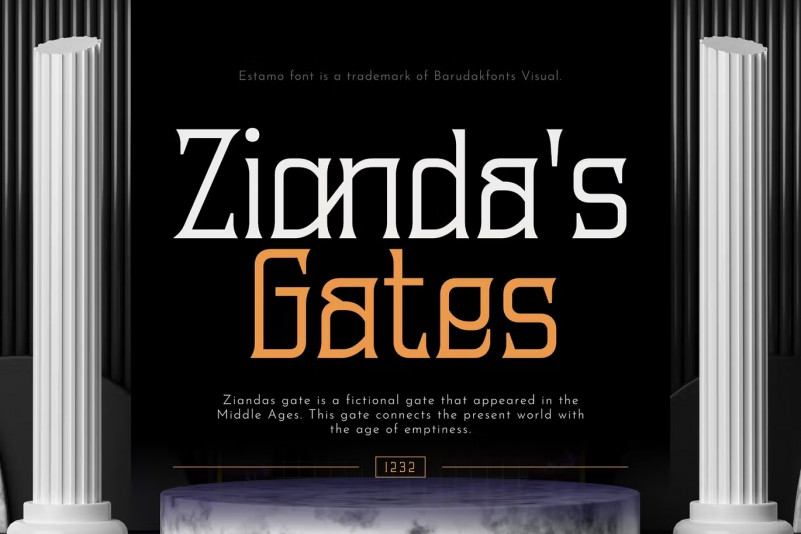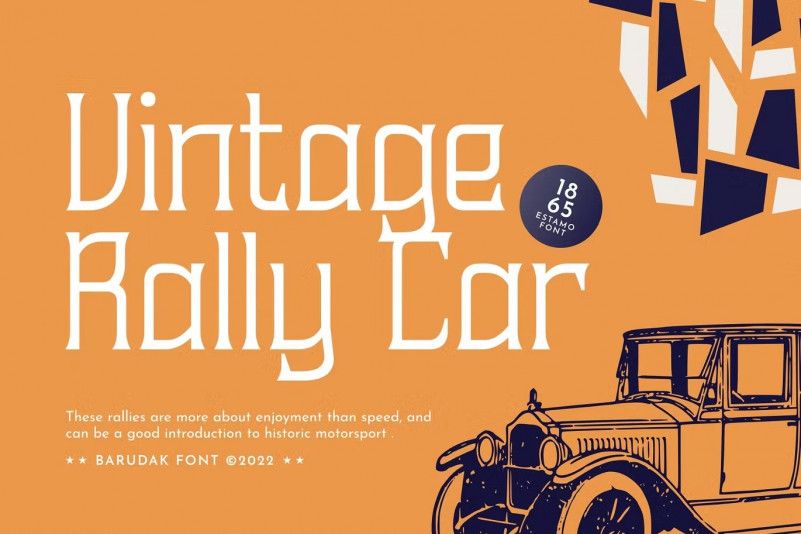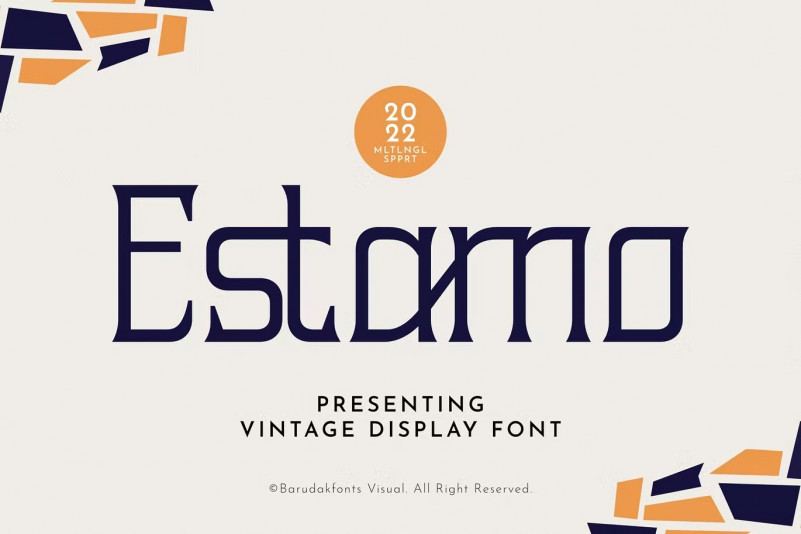
Estamo Font
Estamo – Display Condensed Serif Font. You can creatively edit and use this illustration set on merchandise, logo, sticker, patches, badge, and many more.